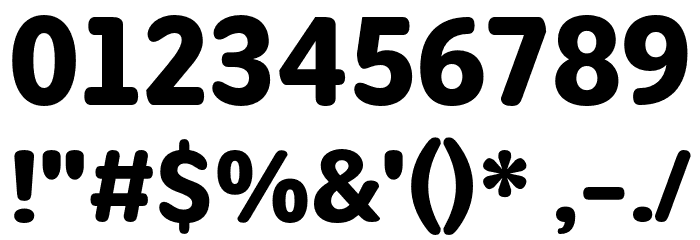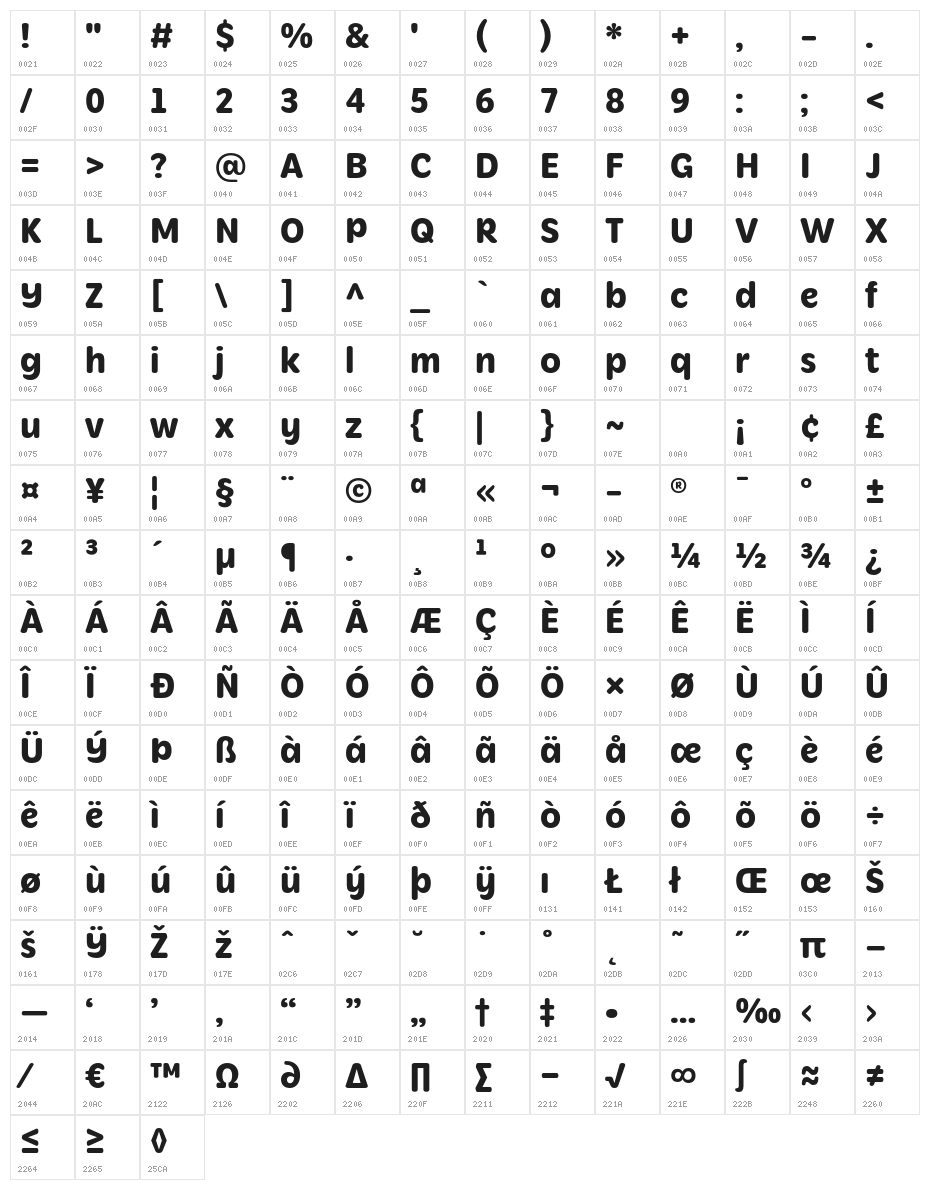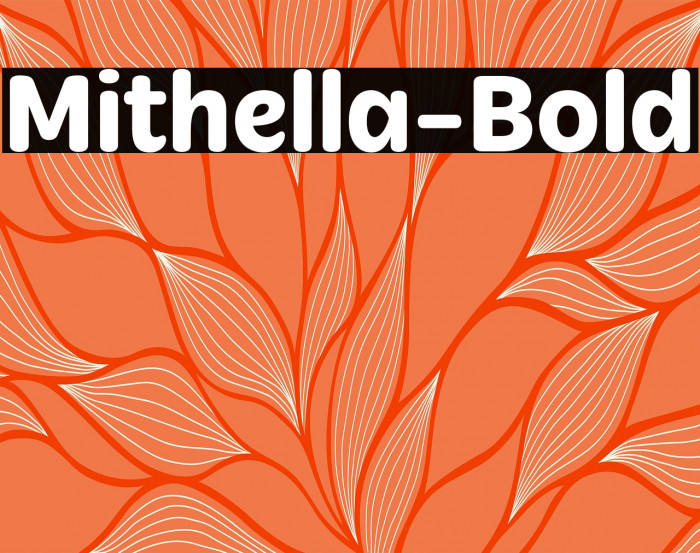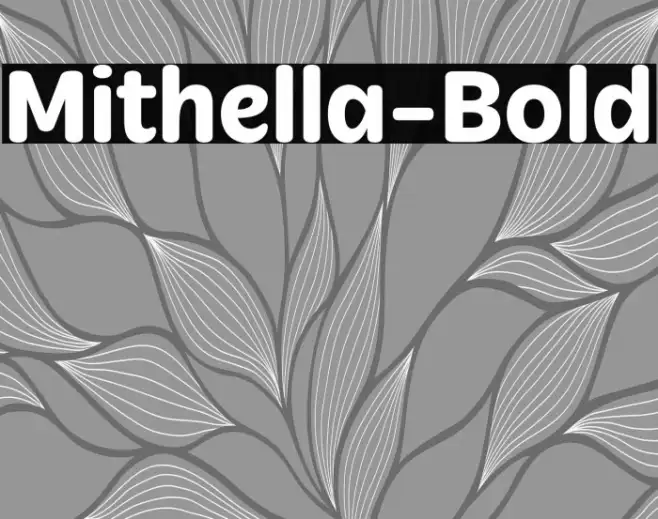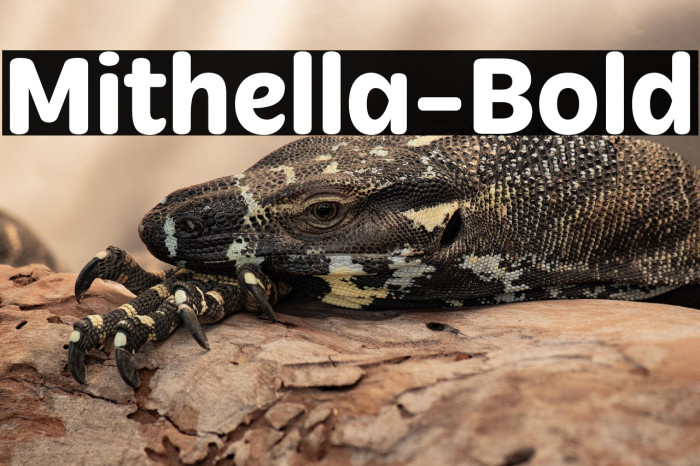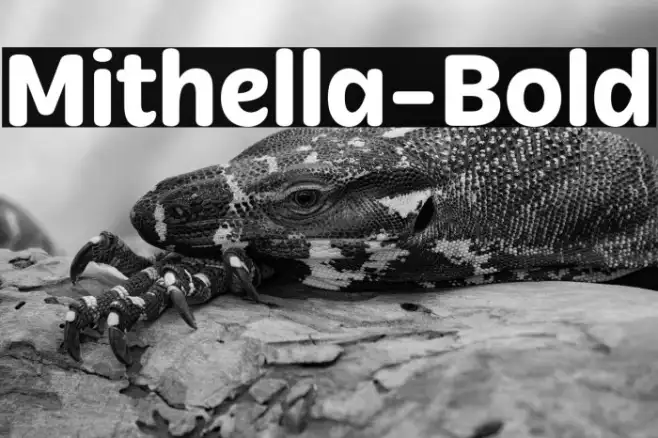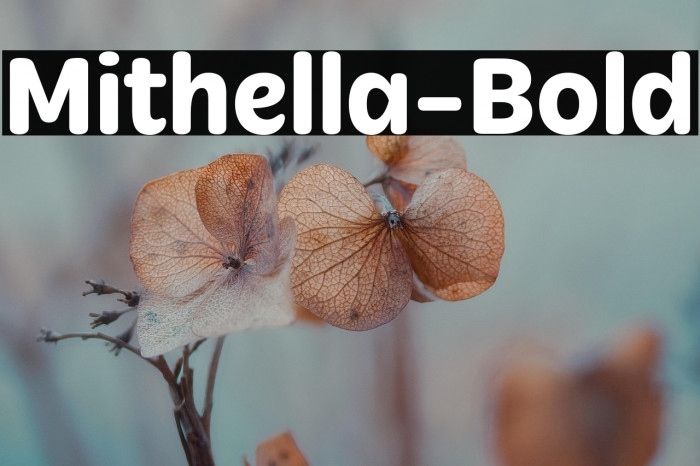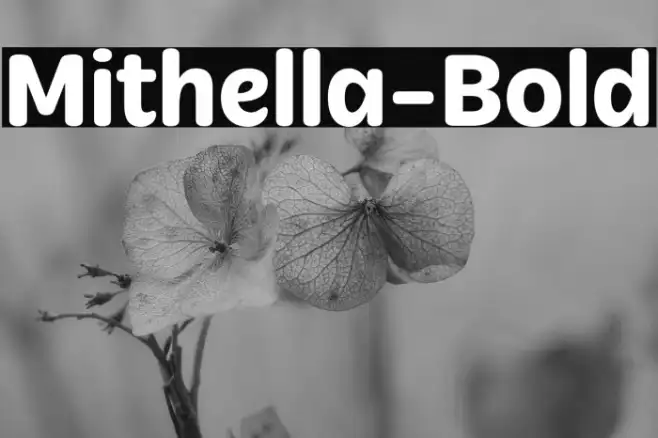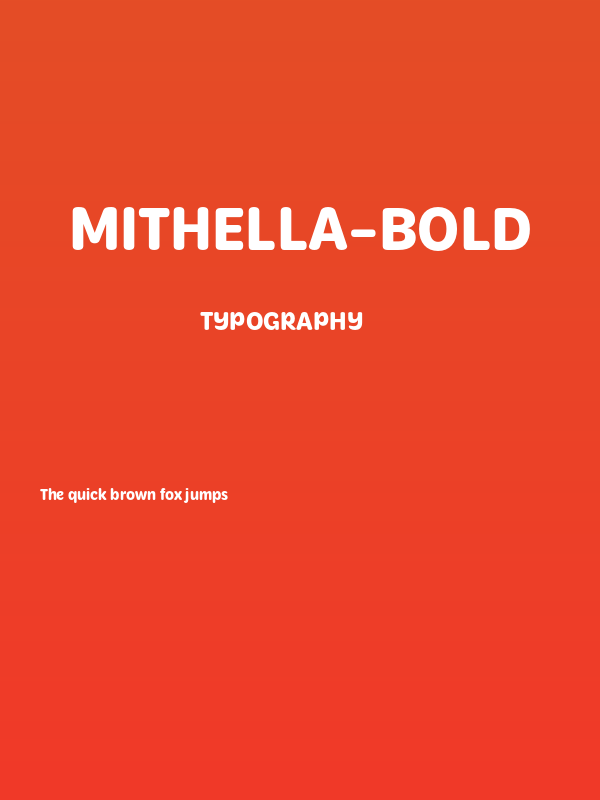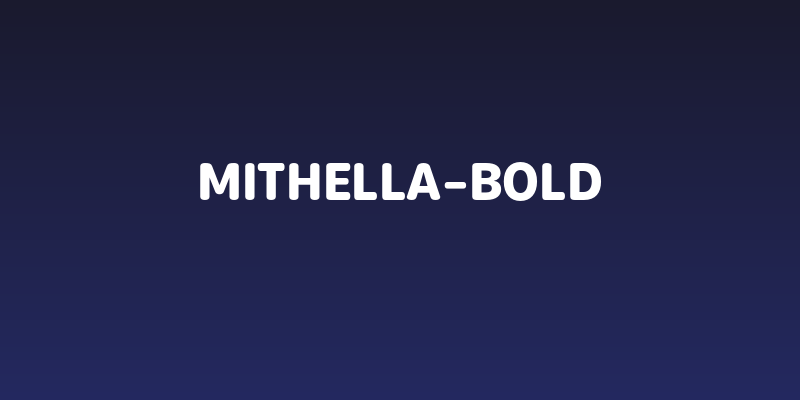
Mithella-Bold Font
Mithella-Bold Description
This font features a bold and rounded style, characterized by its smooth curves and uniform stroke thickness. The letters are designed with a modern aesthetic, offering a friendly and approachable appearance. The uppercase and lowercase characters maintain a consistent weight, ensuring readability and visual harmony. The numerals and special characters are crafted to match the overall style, making them suitable for a variety of design contexts. The font's rounded edges contribute to its contemporary and clean look, making it versatile for both digital and print media.
| Proposed Projects | Ideal for branding, advertising, packaging, and digital content where a friendly and modern look is desired. |